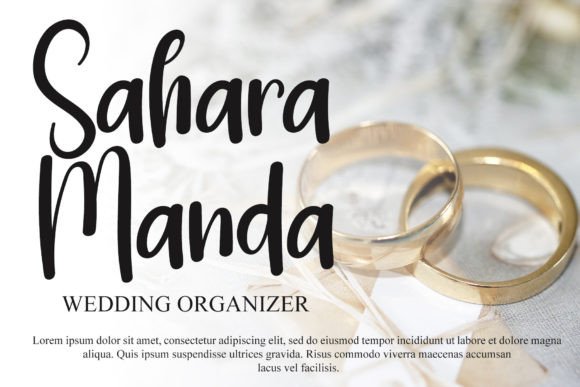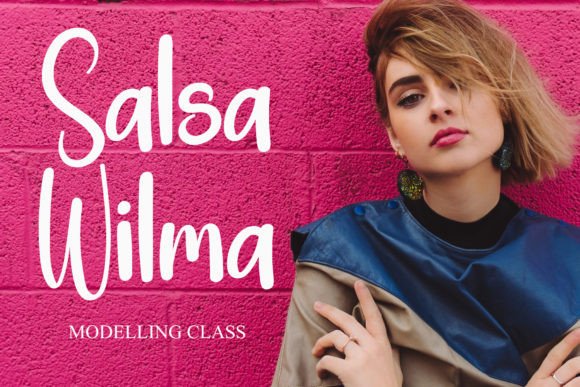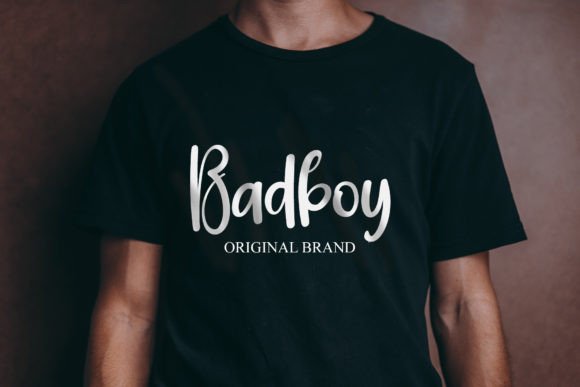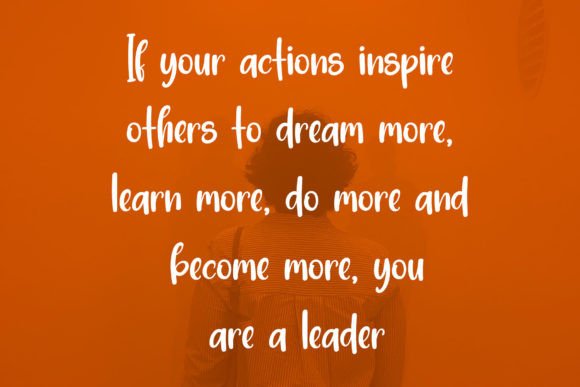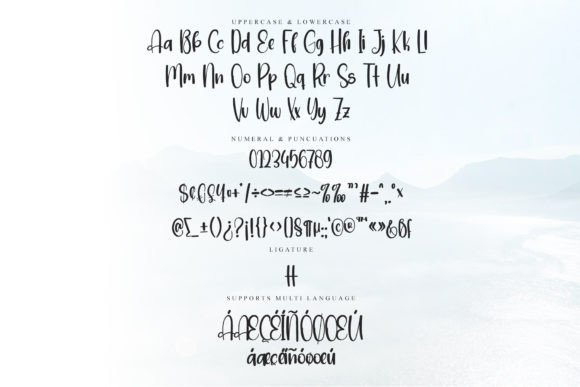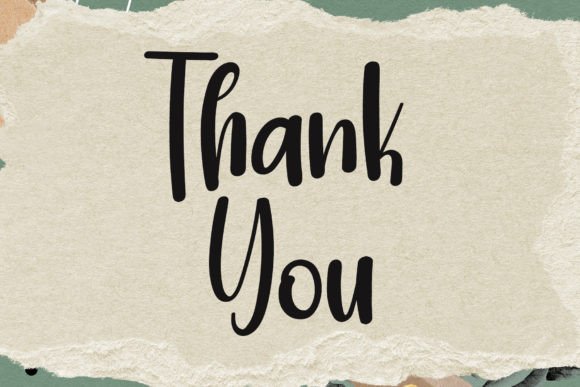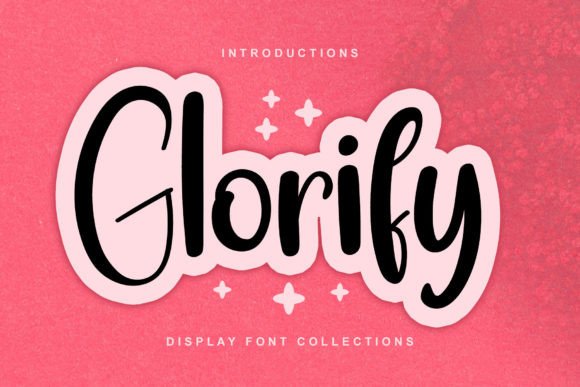
Glorify Font: Add a Touch of Holiday Magic to Your Designs
Are you looking for a font that can add a dash of festive fun to your Christmas cards, decorations, and other holiday-themed designs? Look no further than the Glorify Font! This enchanting typeface is perfect for spreading the joy of the season with its playful and whimsical style.
What Makes Glorify Font So Special?
Glorify Font is a unique and festive typeface that is adorned with enchanting swashes, making it perfect for adding a touch of holiday magic to your designs. The font is designed to be playful and fun, with a whimsical style that is sure to capture the spirit of the season. Whether you’re creating Christmas cards, decorations, or other holiday-themed designs, Glorify Font is the perfect choice.
Key Features of Glorify Font
- Festive and Playful Style: Glorify Font has a fun and playful style that is perfect for the holiday season.
- Enchanting Swashes: The font is adorned with enchanting swashes that add a touch of magic to your designs.
- PUA Encoded: Glorify Font is PUA encoded, which means you can access all of the amazing glyphs and ligatures with ease.
- Perfect for Christmas Designs: The font is perfect for creating Christmas cards, decorations, and other holiday-themed designs.
Tips for Getting the Most Out of Glorify Font
- Experiment with Different Sizes and Colors: Try out different sizes and colors to see what works best for your design.
- Use the Swashes to Add a Touch of Magic: Use the enchanting swashes to add a touch of magic to your designs.
- Pair with Other Festive Fonts: Pair Glorify Font with other festive fonts to create a unique and eye-catching design.
Why Designers and Crafters Love Glorify Font
Designers and crafters love Glorify Font for its unique and festive style. The font is perfect for creating holiday-themed designs that are sure to capture the spirit of the season. The font is also easy to use and is PUA encoded, making it easy to access all of the amazing glyphs and ligatures.
If you’re looking for a font that can add a touch of holiday magic to your designs, look no further than Glorify Font. This enchanting typeface is perfect for spreading the joy of the season with its playful and whimsical style. With its festive and playful style, enchanting swashes, and PUA encoding, Glorify Font is the perfect choice for designers and crafters who want to create unique and eye-catching holiday-themed designs.